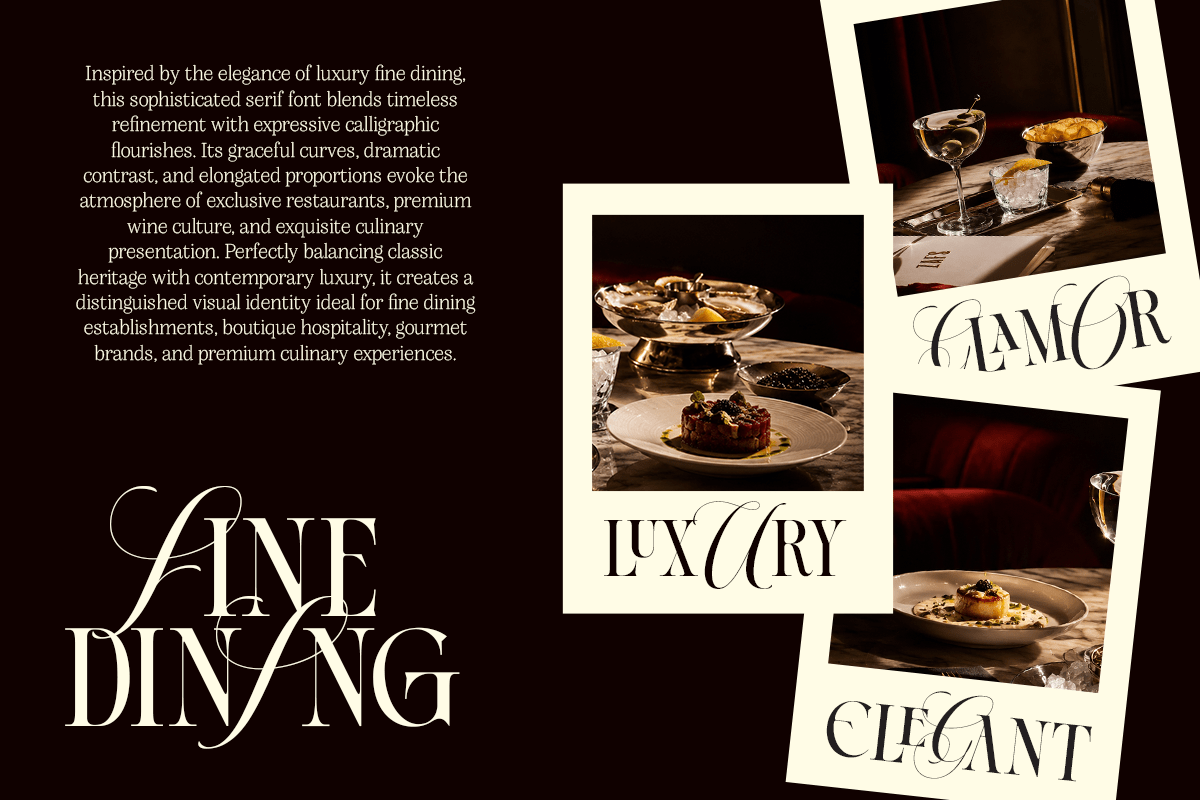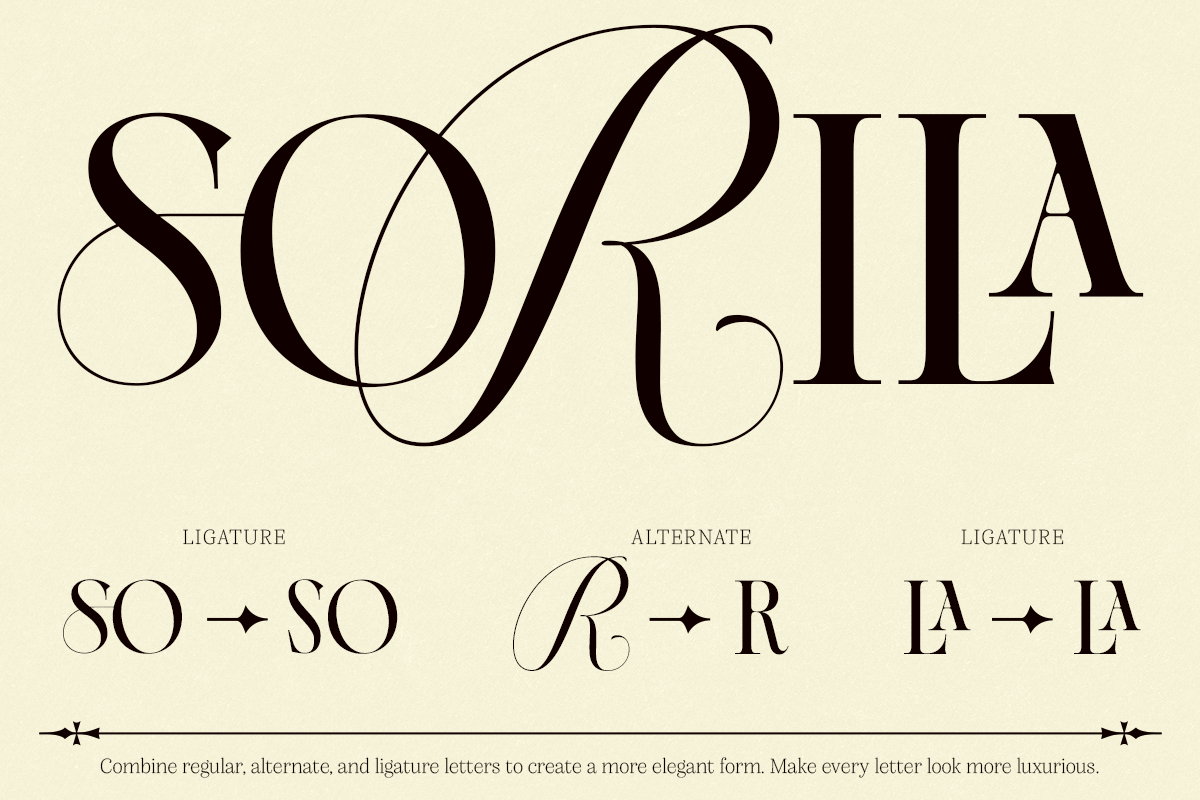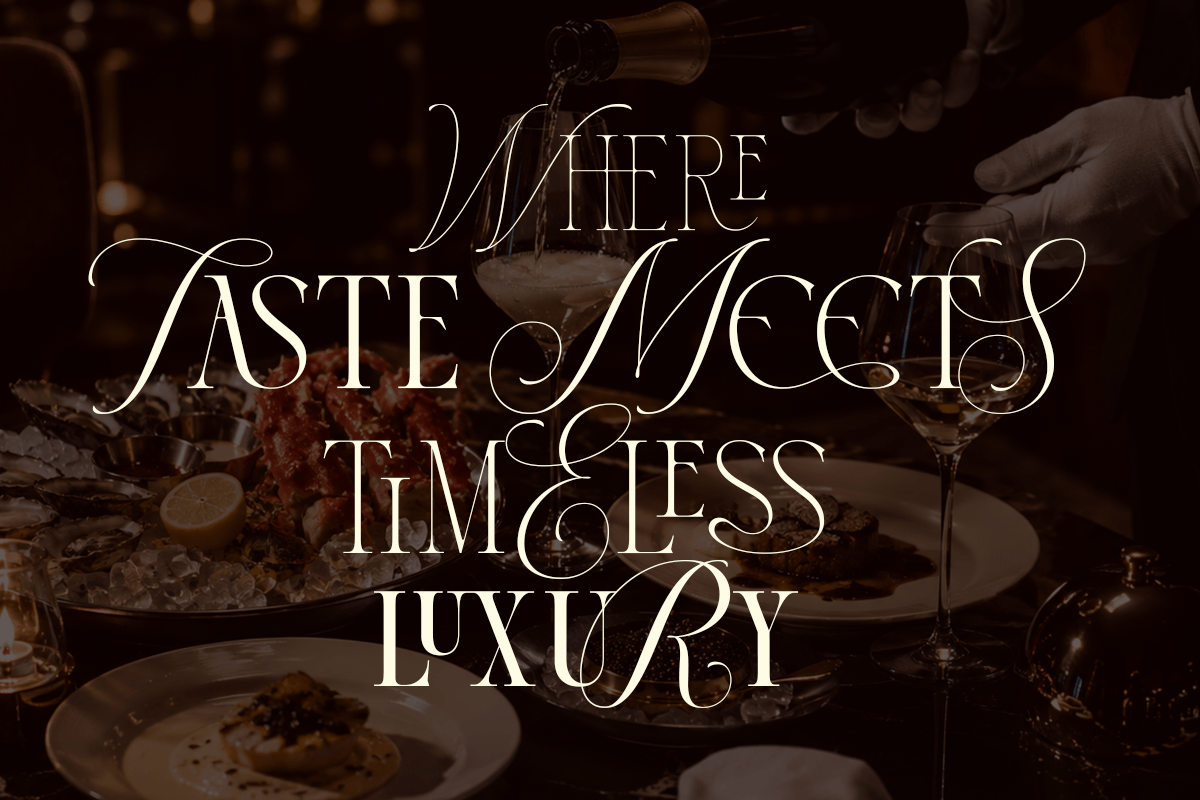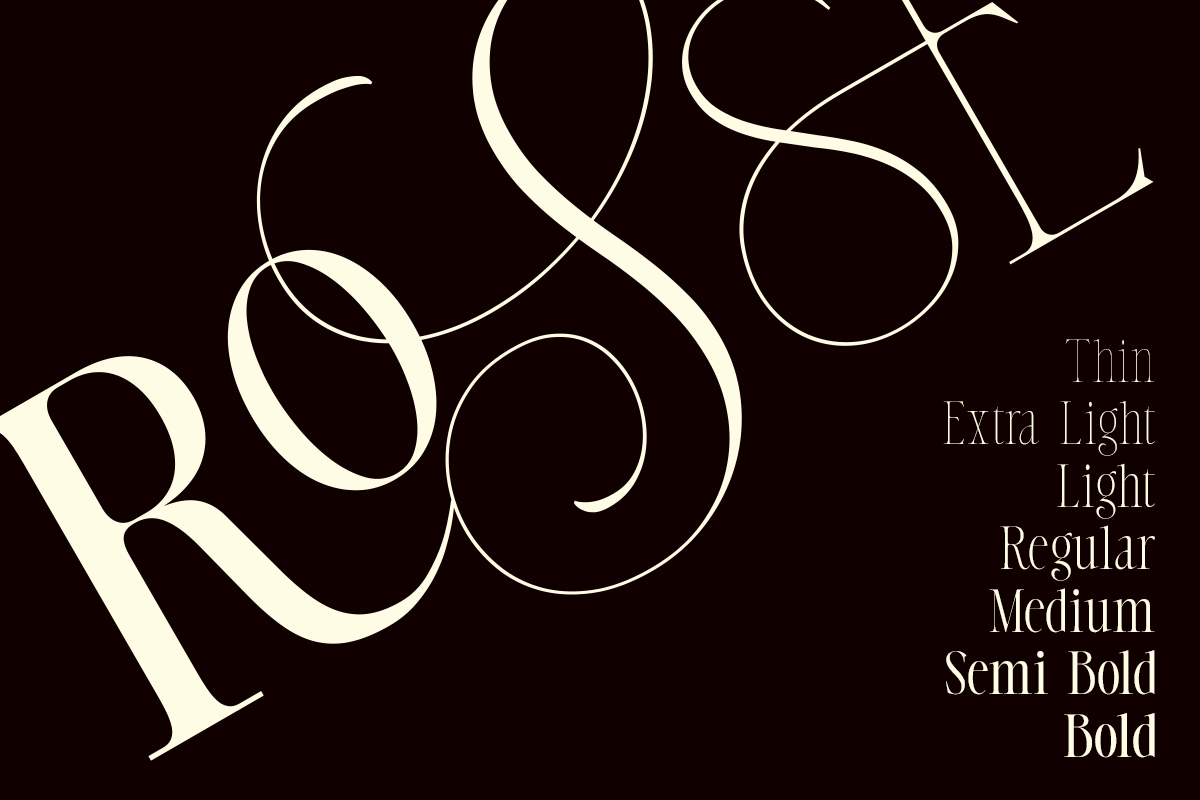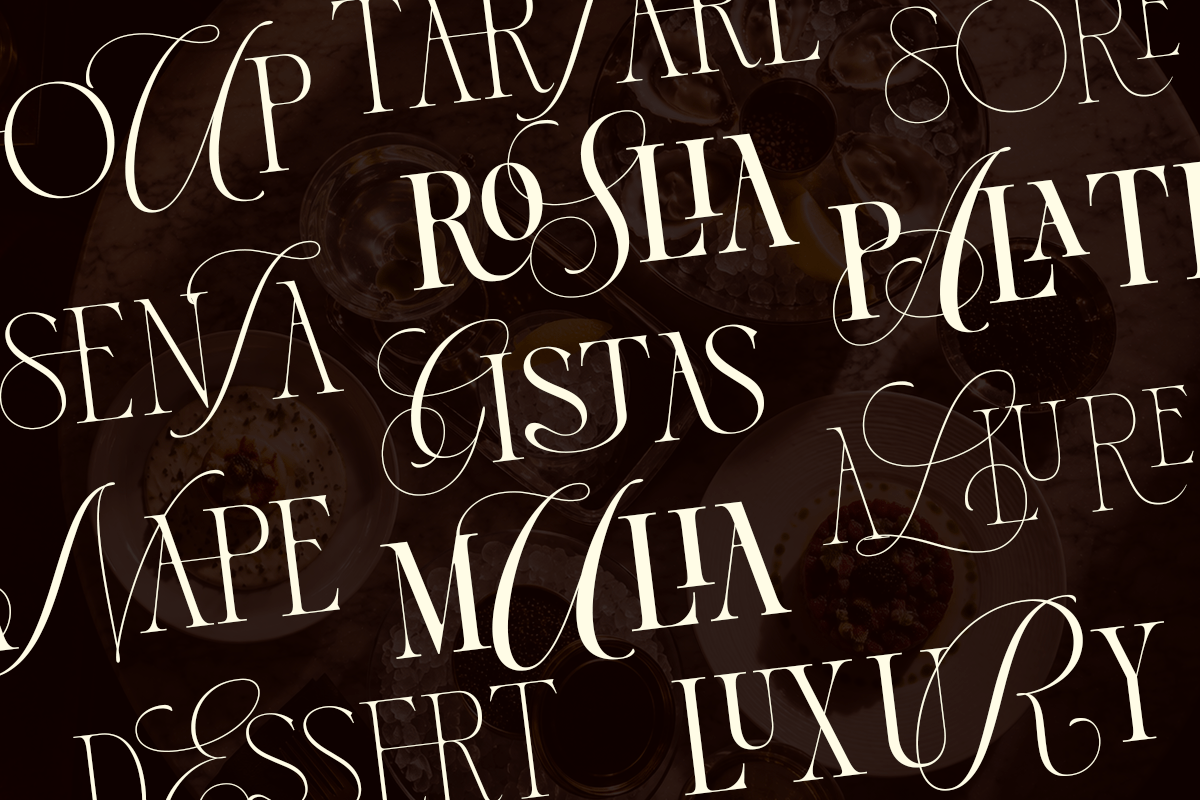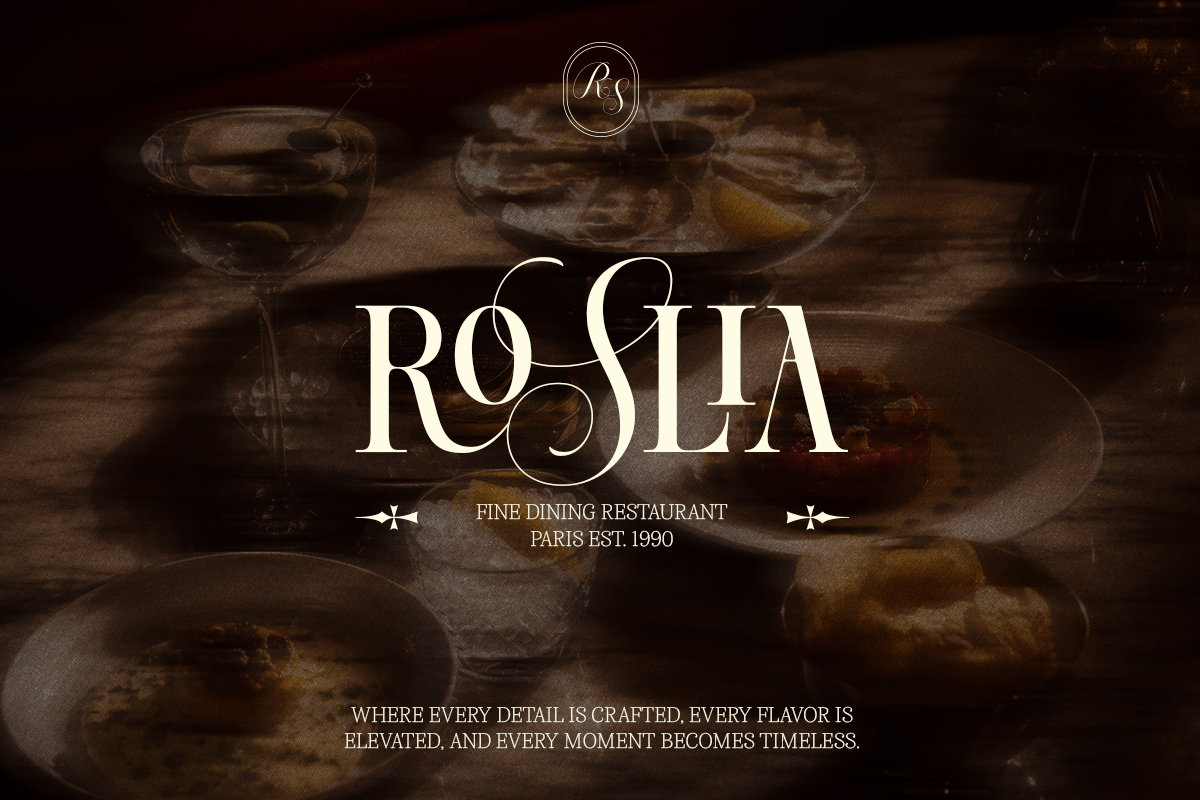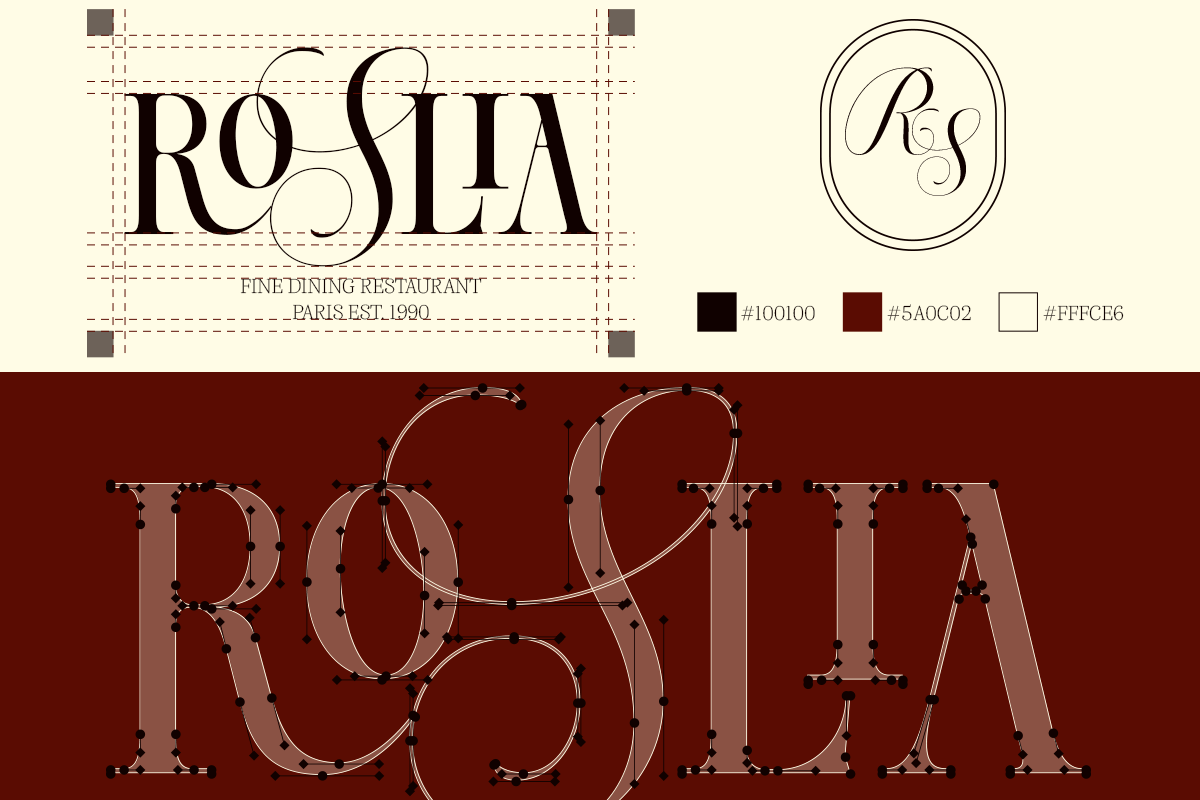
Alista Aghni
About the Product
Alista Aghni is an elegant serif font family created for luxury branding, fashion labels, beauty packaging, wedding stationery, editorial publishing, and hospitality brands. Designed for logos, magazine headlines, product packaging, invitations, and book covers, Alista Aghni creates a refined and premium visual identity. Inspired by timeless serif typography, the overall look feels sophisticated, graceful, and luxurious.
Alista Aghni Font Features:
• 7 Weights: Thin, Extra Light, Light, Regular, Medium, Semi Bold, Bold
• 103+ Elegant Alternates and Ligatures
• Letters, numbers, symbols, punctuation, special alternates
Multilingual Characters available for:
Afrikaans, Albanian, Asu, Basque, Bemba, Bena, Breton, Chiga, Cornish, Dutch, English, Estonian, Filipino, Finnish, Friulian, Galician, German, Gusii, Indonesian, Irish, Italian, Kabuverdianu, Kalenjin, Kinyarwanda, Luo, Luxembourgish, Luyia, Machame, Makhuwa-Meetto, Makonde, Malagasy, Manx, Morisyen, North Ndebele, Nyankole, Oromo, Portuguese, Quechua, Romansh, Rombo, Rundi, Rwa, Samburu, Sango, Sangu, Scottish Gaelic, Sena, Shambala, Shona, Soga, Somali, Spanish, Swahili, Swedish, Swiss.